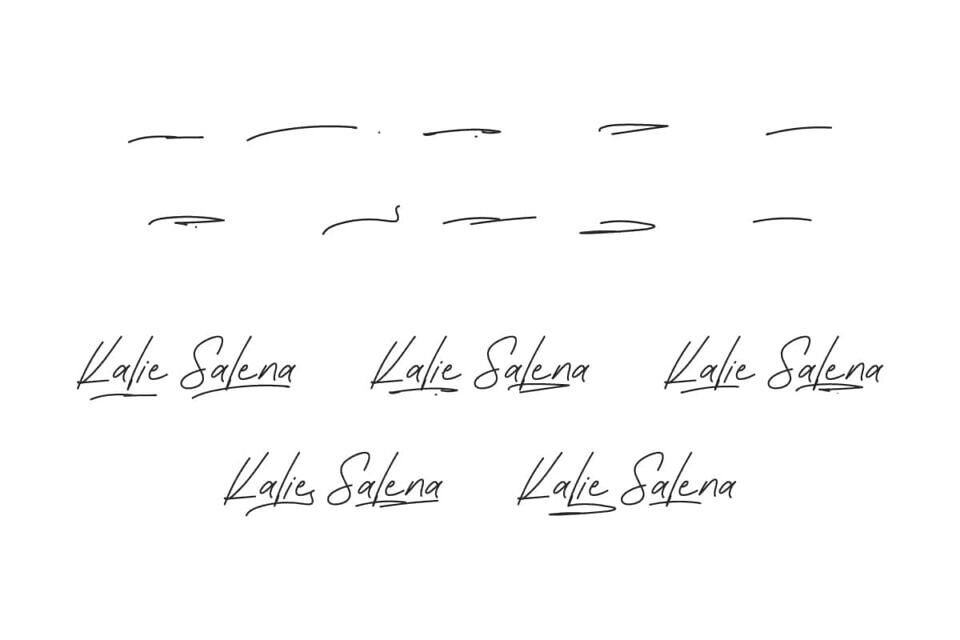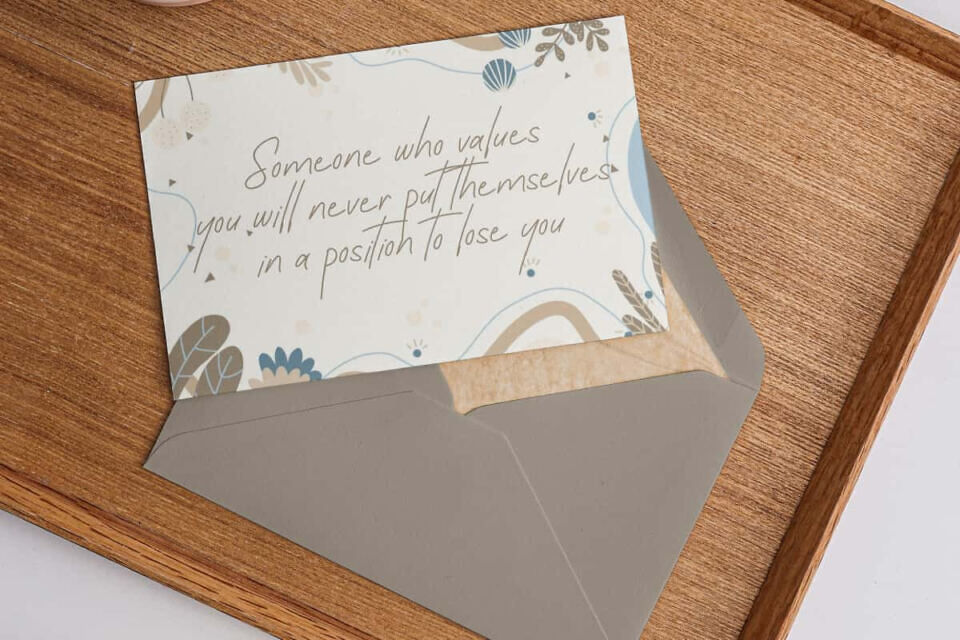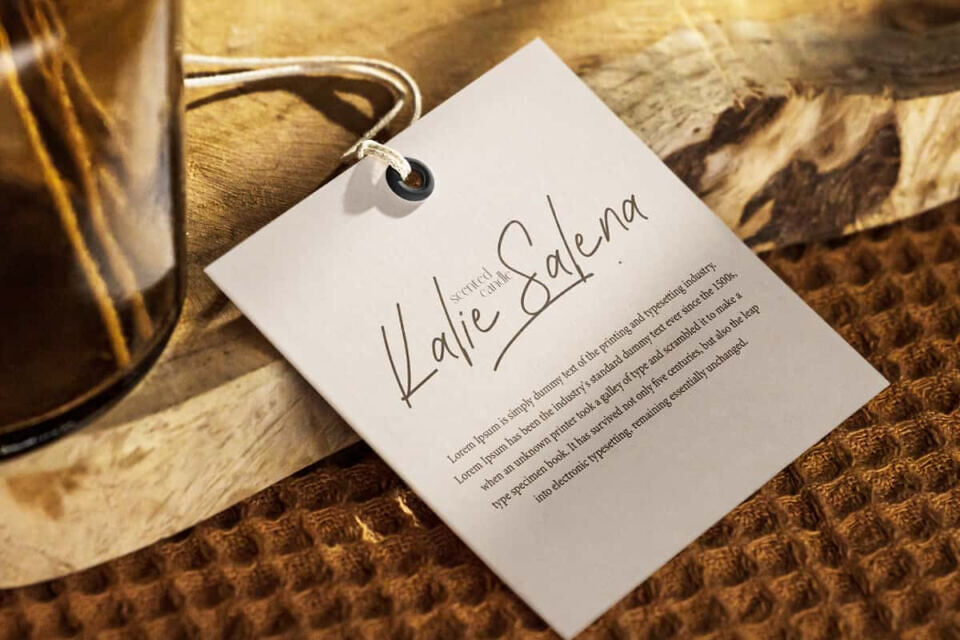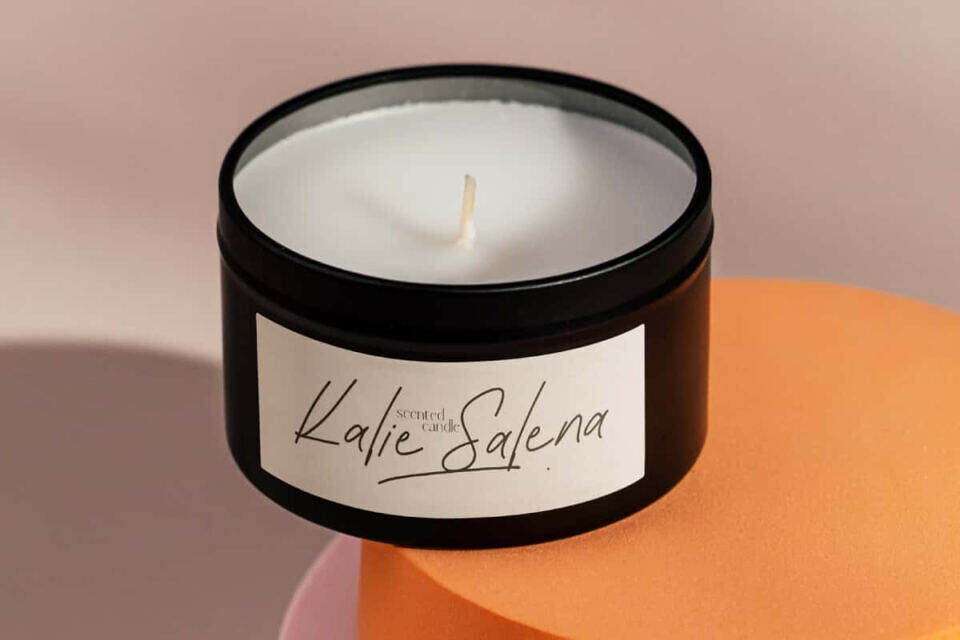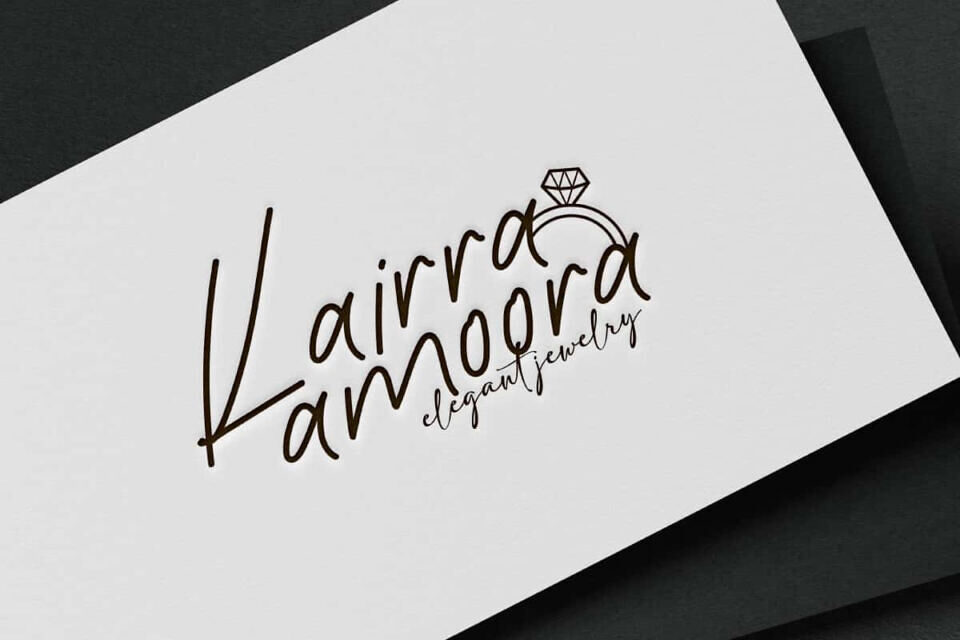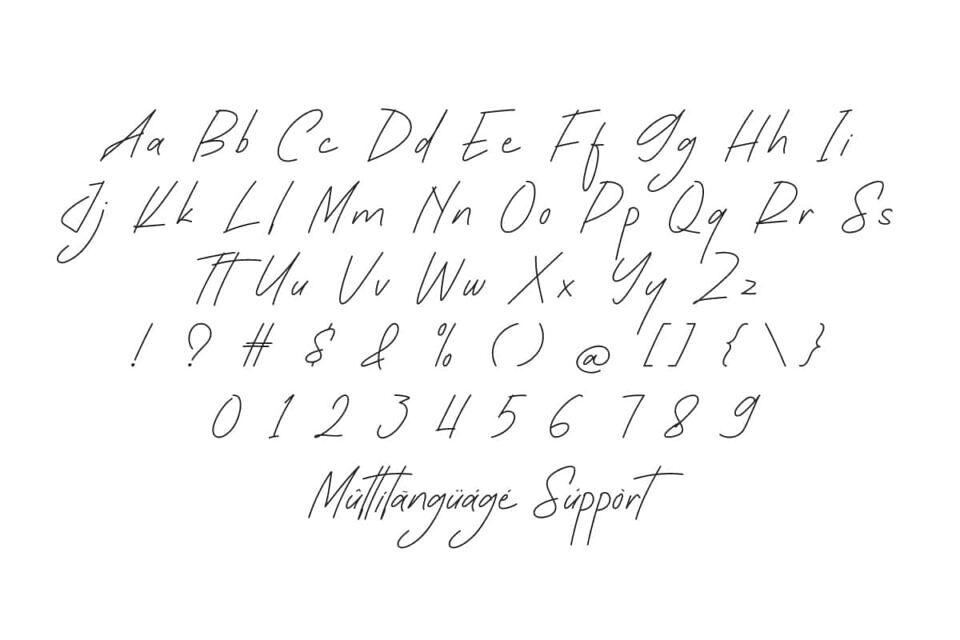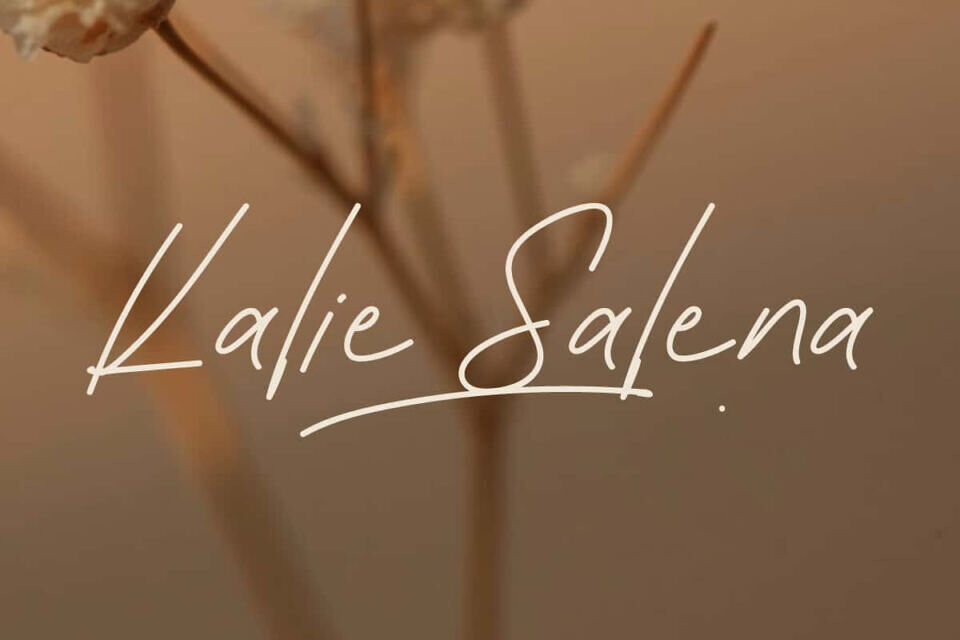
Kalie Salena Font
Kalie Salena Font is is a chic and smooth handwritten style font with modern touch. This font will be suitable for many industries, such as advertisement, author and writer, beauty product, event or festival, florist, handicraft, homeware, jewelry and accessories, printing, publishing, and more!
Kalie Salena Font includes full set of Uppercase and Lowercase Basic Characters, Numerals, Punctuation, Symbol, and Swoosh character. Its natural curved lines give a personal impression, as if written directly by hand. Making it a perfect choice for a variety of fields, such as brand image, brochure, business card, cover, custom designs, invitation, label, packaging design, poster, quotes, screen printing, website, etc.